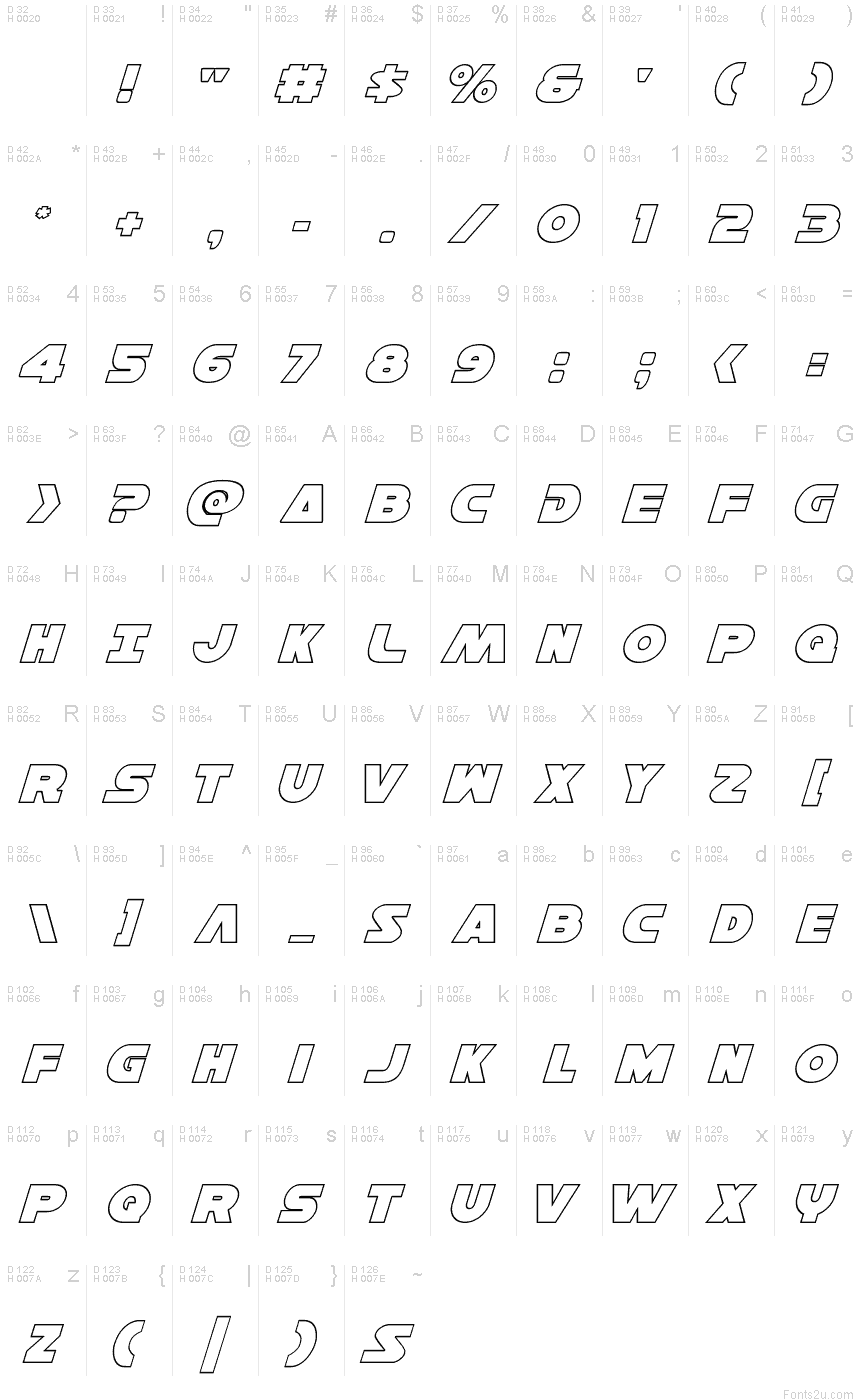
Han Solo Outline Italic by Iconian Fonts is a free outlined display font with broad, forward-leaning capitals and a hard-edged action style. Sharp joins, clipped interior cuts, and tightly fitted letters give the face the speed and scale of a science-fiction title treatment.
The open letter shapes can echo line art, racing stripes, and angular spacecraft illustrations in sports branding or game title screens. That same fast silhouette suits motorsport posters and team merchandise. Its repeated wedges and slanted cuts make the lettering feel connected to machinery and motion rather than added as neutral text.